There’s something absolutely mesmerizing about flame fonts. These fiery typefaces don’t just sit on a page – they leap, dance, and practically sizzle with energy.
Flame fonts feature flickering edges, blazing textures, and that unmistakable heat that can transform any ordinary design into something that truly burns bright. Whether you’re working on band merchandise, gaming graphics, or restaurant branding, flame fonts are your secret weapon for creating designs that demand attention. You might also like this list of smoky fonts.
The Hottest Flame Fonts Burning Up 2026
Not all flame fonts are created equal – some barely smolder while others are absolute infernos. I’ve curated this collection of the most scorching flame fonts that are setting the design world ablaze right now:
Fireboys
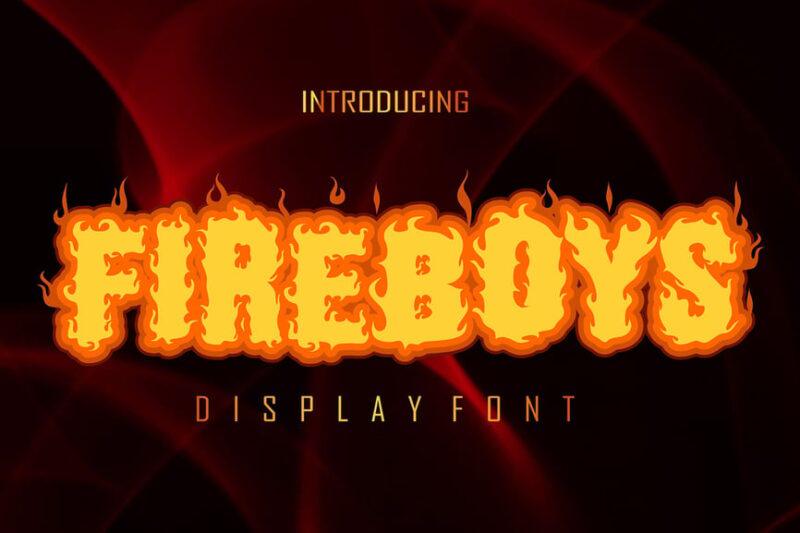
Fireboys is a decorative font that embodies the essence of heat and flames. Its bold, fiery design makes it perfect for projects requiring a strong, energetic visual impact, particularly suited for themes related to fire and intensity.
Steak House
Steak House is a display burn font that exudes a rustic, charred aesthetic. Its unique design makes it ideal for branding projects, especially in the food industry, where a bold and creative typographic approach is desired.
Burning Hammer
Burning Hammer is a decorative display font that conveys strength and intensity. Its bold, fiery design makes it perfect for headlines or logos that need to make a powerful, scorching impact.
Fire Ball
Fire Ball is a hot fire display font that captures the essence of intense heat. Its dynamic, flame-like characters make it ideal for promotional materials or designs that need to convey energy and passion.
VAGUARD
VAGUARD is a sans-serif font with decorative elements that give it a unique, crafted feel. Its blend of modern and artisanal qualities makes it versatile for various design projects requiring a touch of distinctiveness.
Bakar
Bakar is a flaming unique font that combines sans-serif structure with decorative flame elements. Its distinctive style makes it particularly suitable for music-related designs or invitations that require a fiery, eye-catching typography.
Flamegeist
Flamegeist is a decorative font that merges flame aesthetics with a spooky vibe. Its unique design makes it perfect for Halloween-themed projects or any design that requires a blend of fire and eerie elements.
Blazeberg
Blazeberg is a flame typeface that embodies the essence of fire and burning. Its bold, scorching design makes it ideal for projects that need to convey intense heat or passion, perfect for fiery themes or burning-hot promotions.
Combust
Combust is a playful fire display font that brings a lighthearted touch to flame-inspired typography. Its whimsical design makes it perfect for projects related to bonfires or any design that needs a fun, fiery aesthetic.
Falo
Falo is a flaming decorative font that combines sans-serif elements with fiery accents. Its unique style makes it particularly suitable for music-related designs or invitations that require a bold, flame-inspired typography.
Firehead
Firehead is the ultimate flame font, designed to capture the essence of fire in typography. Its intricate flame details and spark effects make it perfect for projects that require a high-impact, fiery visual statement.
Wave Burn
Wave Burn is a creative font that combines wave-like elements with a burnt aesthetic. Its unique design makes it ideal for projects that require a blend of fluid movement and fiery intensity in their typography. Depending on how you look at it, this could also be used as a water font.
Trash Flame
Trash Flame is a decorative font that merges a grungy, trashy aesthetic with flame elements. Its edgy design makes it perfect for Halloween-themed projects or death metal band logos that require a fierce, fiery typography.
Heatware
Heatware is a flaming advertisement font that combines brush-like strokes with fiery elements. Its bold design makes it ideal for eye-catching advertisements or any project that needs to convey heat and energy through typography.
Most importantly, have fun with them! Flame fonts are meant to be exciting and energetic. Let that energy inspire your creativity and push your designs to new levels of impact.
Whether you’re designing for a rock band, a hot sauce company, or just want to add some serious heat to your next project, the right flame font can be the spark that sets your design ablaze. So go ahead – light up those designs and watch them burn bright!
What flame font will you try first? The fire starts now!